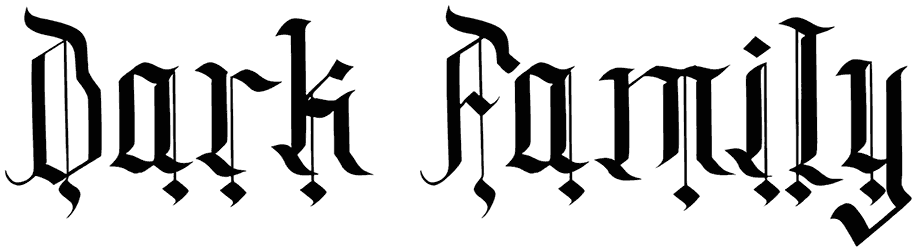
Dark Family Font
Dark Family is a modern gothic font that is crafted uniquely with an elegant hanging line to give your design an impressive look. This blackletter font also offers a vintage and authentic feel in combination with courage and bravery. It’s a perfect choice for movie posters, album covers, clothes printing, barbershop logos, and advertising aims.